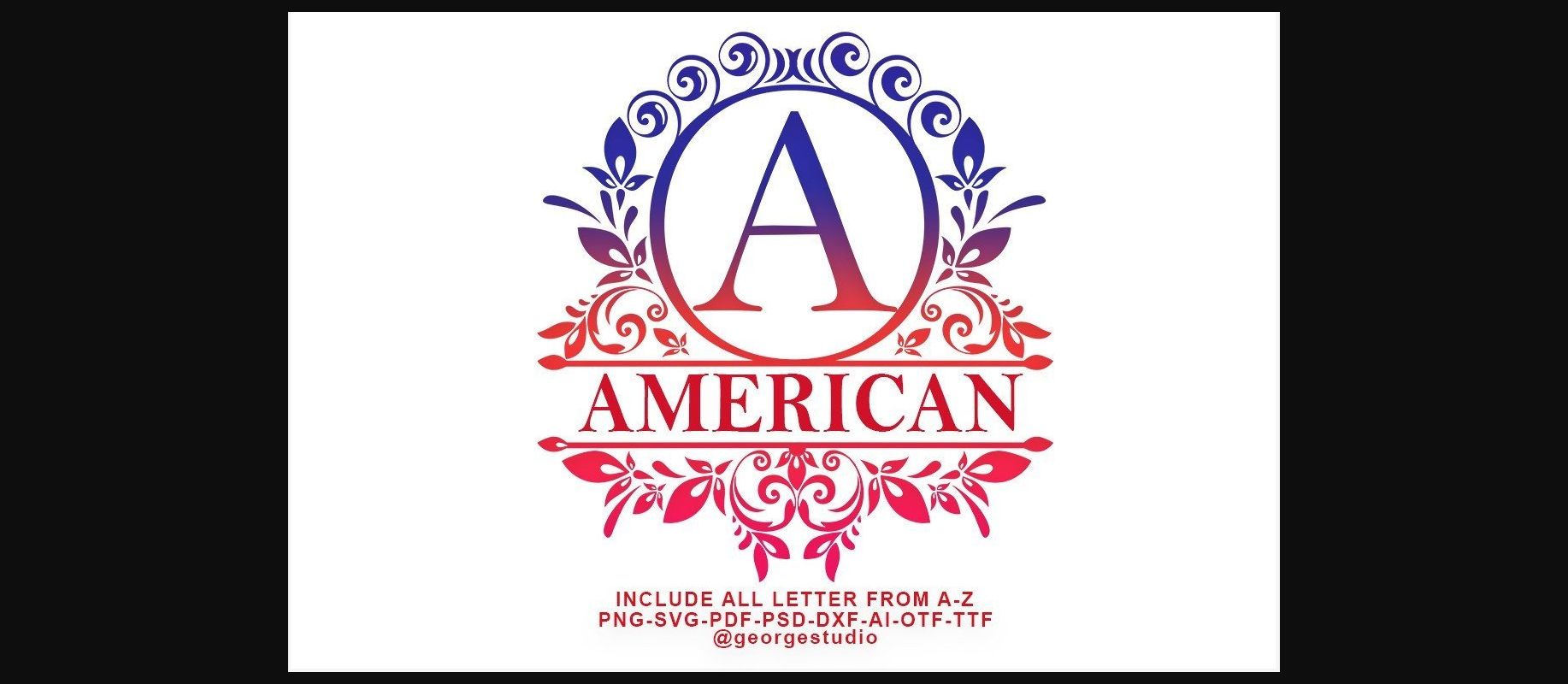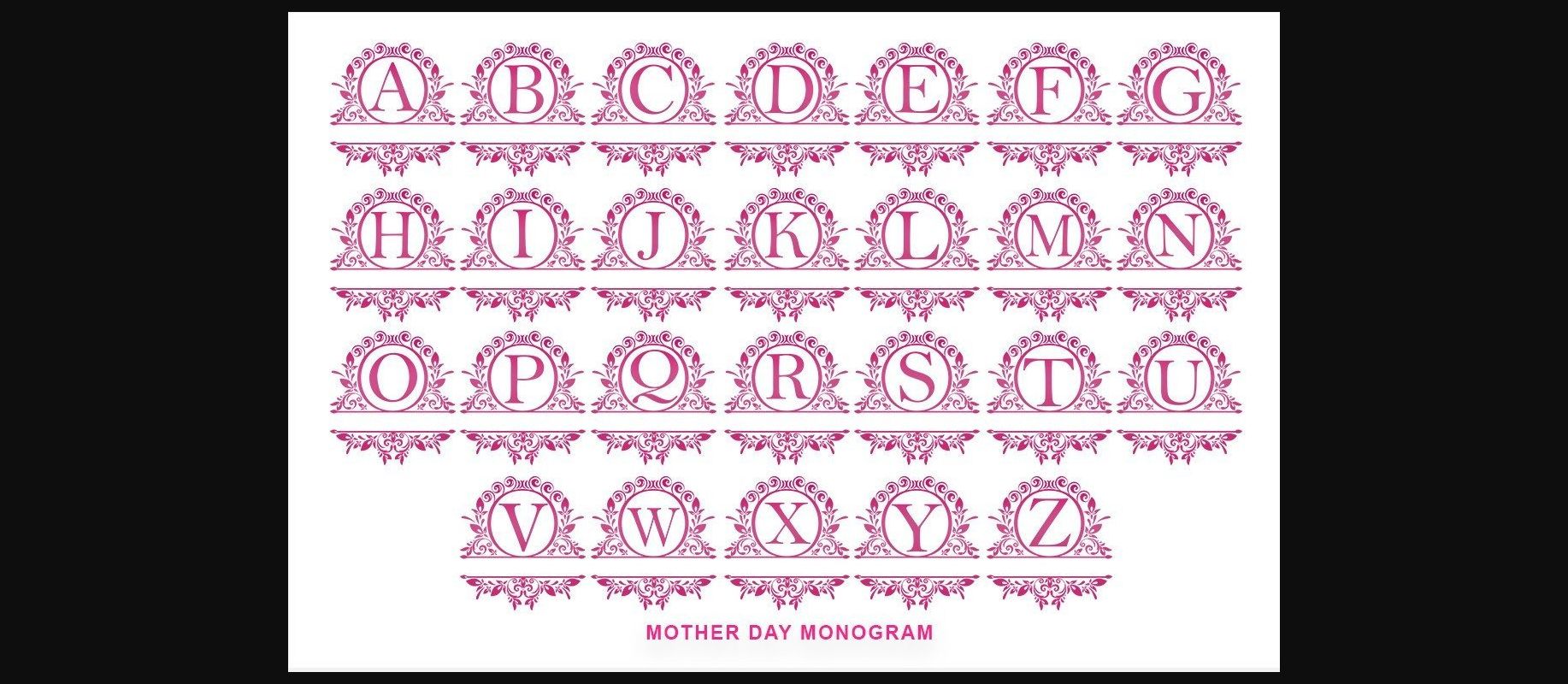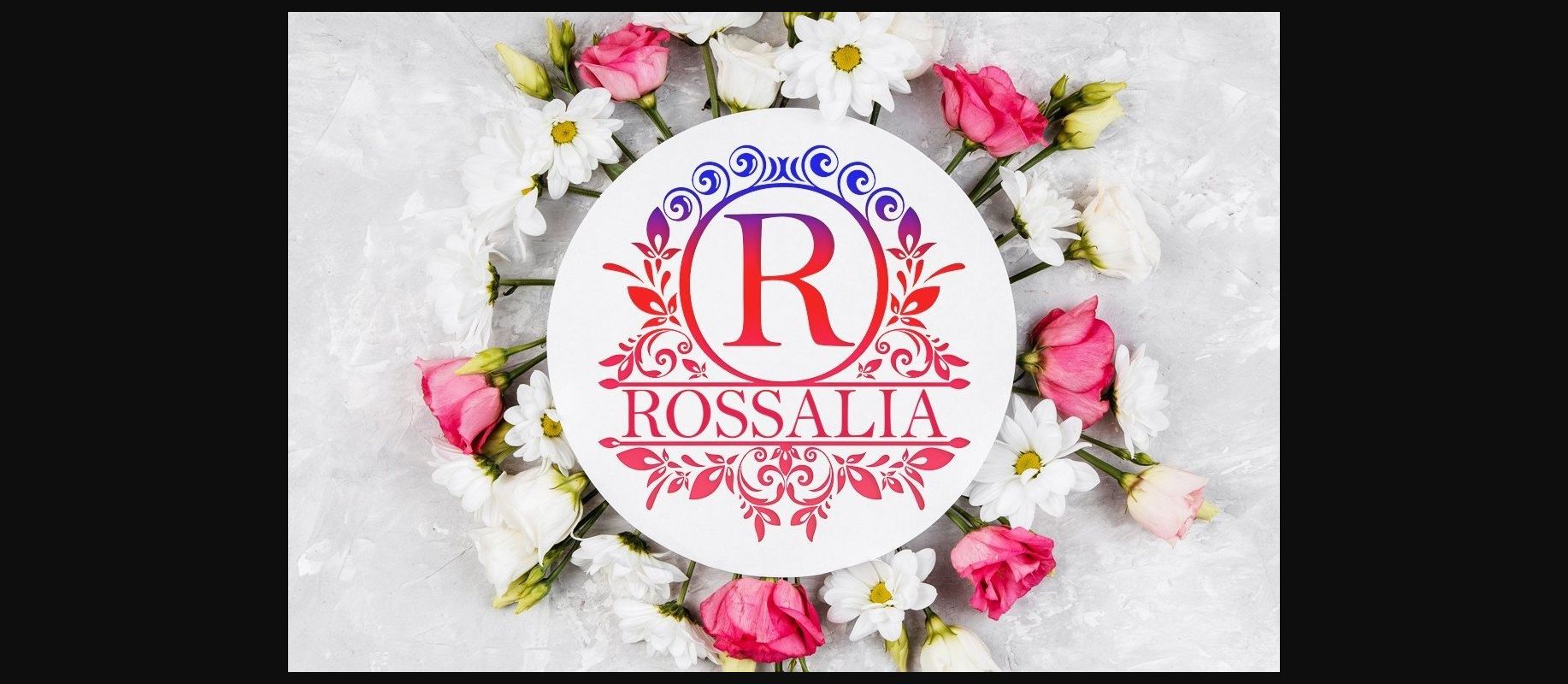
Mother Font
About Mother Font
Mother is a monogram patriotic decorative font, perfect for true American projects! It is perfectly suitable for apparel designs, product packaging, branding, name tags, and so much more!